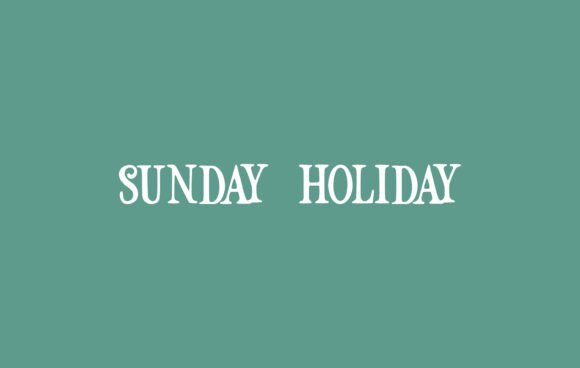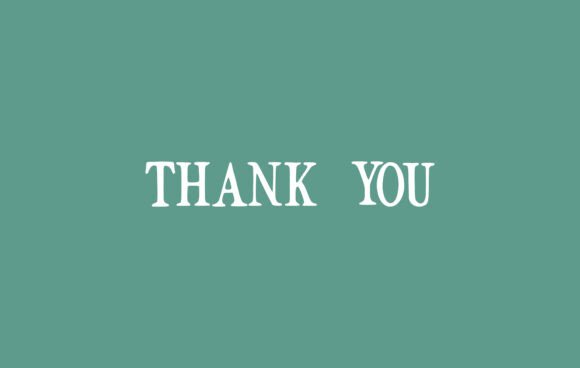
Introduction to Jazz Pulse Font
Have you ever been working on a creative project, pouring your heart and soul into it, and suddenly, you need a font that screams elegance and sophistication? That’s where the enchanting Jazz Pulse Font comes in – a true gem for designers and creatives alike. This authentic handwritten font is designed to evoke a romantic touch, perfect for adding that extra oomph to your designs.
As a valuable resource for designers, the Jazz Pulse Font offers a high-quality solution for a wide range of creative projects, from magazine headlines to social media graphics, and even wedding invitations. Its legibility makes it suitable for both title and body text, ensuring your message is conveyed with clarity and style. Whether you’re looking for a free download or a design resource to elevate your brand, the Jazz Pulse Font is an excellent choice.
Key Features of Jazz Pulse Font
- Unique, hand-drawn design with a lively and energetic feel, perfect for creative projects
- High-quality font with transparent background, ideal for use on various design elements and backgrounds
- Perfect for use in graphic design, digital art, and creative projects, adding a touch of jazz-inspired style and energy
Honest Review: Jazz Pulse Font
One of the things that really stands out about the Jazz Pulse Font is its versatility. It’s perfect for projects that need a bit of a retro vibe, and the transparent background option allows for seamless integration into any design.
- ⚠️ Limited font styles (only a few options available)
- ⚠️ Not ideal for projects that require a modern or minimalist aesthetic
Overall, I’m really impressed with the Jazz Pulse Font. It’s a great addition to any designer’s toolkit, and I’ll definitely be using it for future projects. If you’re looking for a high-quality design resource for your creative project, I highly recommend giving the Jazz Pulse Font a try.
Tips for Getting the Most Out of Jazz Pulse Font
Use the Jazz Pulse Font in conjunction with other design elements, such as graphics and textures, to create a unique and eye-catching design. Experiment with different font sizes and colors to add depth and interest to your project.
Common Use Cases for Jazz Pulse Font
The Jazz Pulse Font is perfect for use in creative projects such as music festival promotions, art posters, and fashion designs. Its unique aesthetic and transparent background make it ideal for use on a variety of digital platforms.